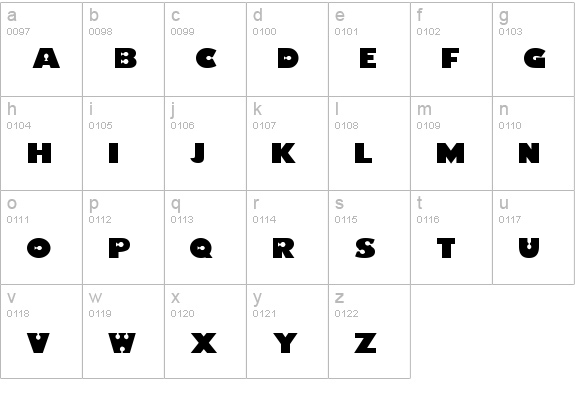
Introducing Findet Nemo font, a whimsical and playful typeface that captures the essence of the beloved animated film. With its charming and bubbly letterforms, Findet Nemo font brings to life the underwater adventures of Nemo, Marlin, and Dory. This delightful font is perfect for adding a touch of magic to your designs, whether you're creating posters, invitations, or children's books. What makes Findet Nemo font even more special is that it is freely available to download at FontsMarket.com. Yes, you read that right – this enchanting font can be yours without any cost! Now, you can dive into the world of Finding Nemo and let your creativity flow without any limitations. Designed with attention to detail, Findet Nemo font features carefully crafted letters that capture the essence of the film's characters. Each character is filled with personality, just like Nemo himself. The playful curves and whimsical lines of this font will bring a smile to your face and add a touch of joy to your projects. Whether you're designing a birthday card for a young fan or creating a poster for a themed event, Findet Nemo font will surely make a splash. Its versatility allows you to use it in various design applications, from digital projects to print materials. So why wait? Dive into the magical world of Findet Nemo font and let your imagination run wild. Download it for free at FontsMarket.com and bring a touch of underwater adventure to your designs today!